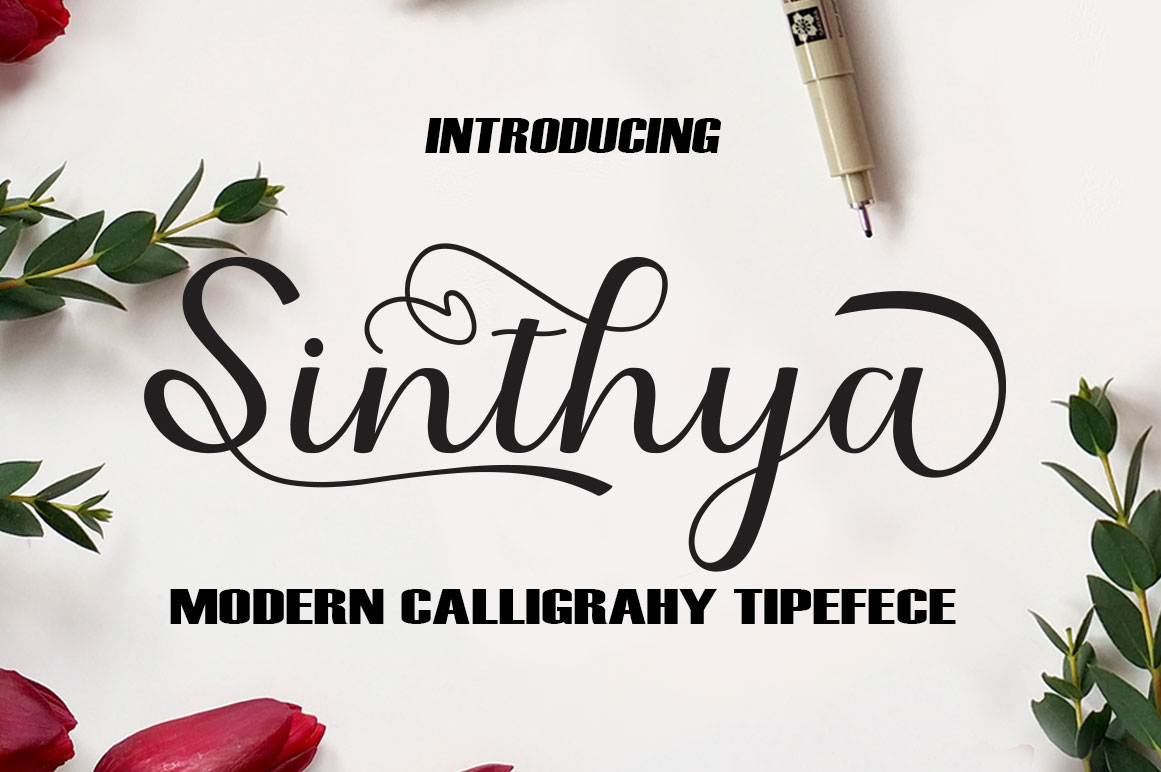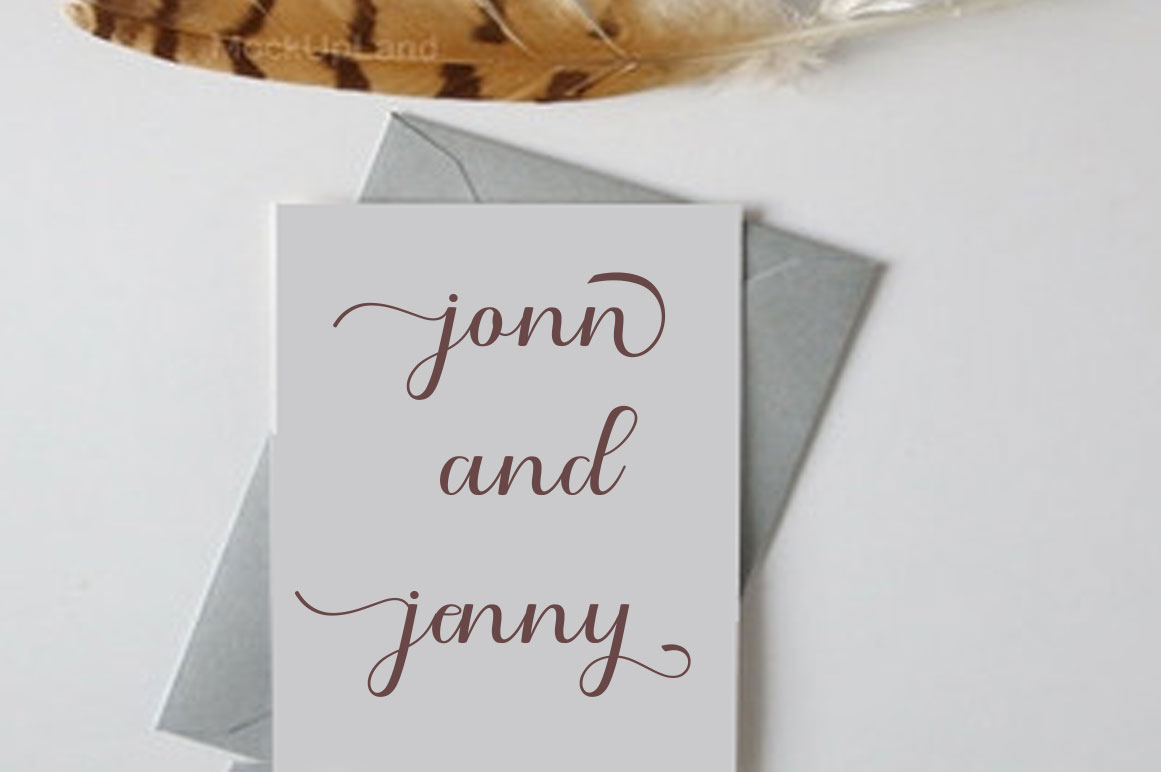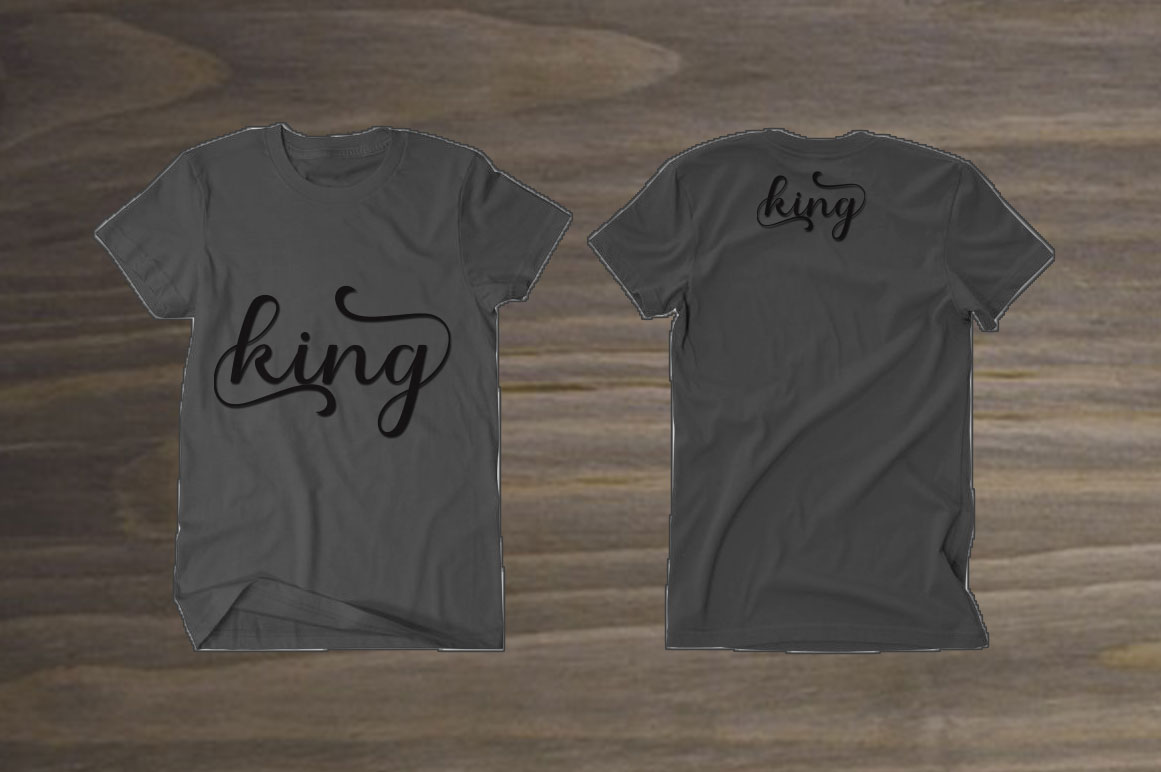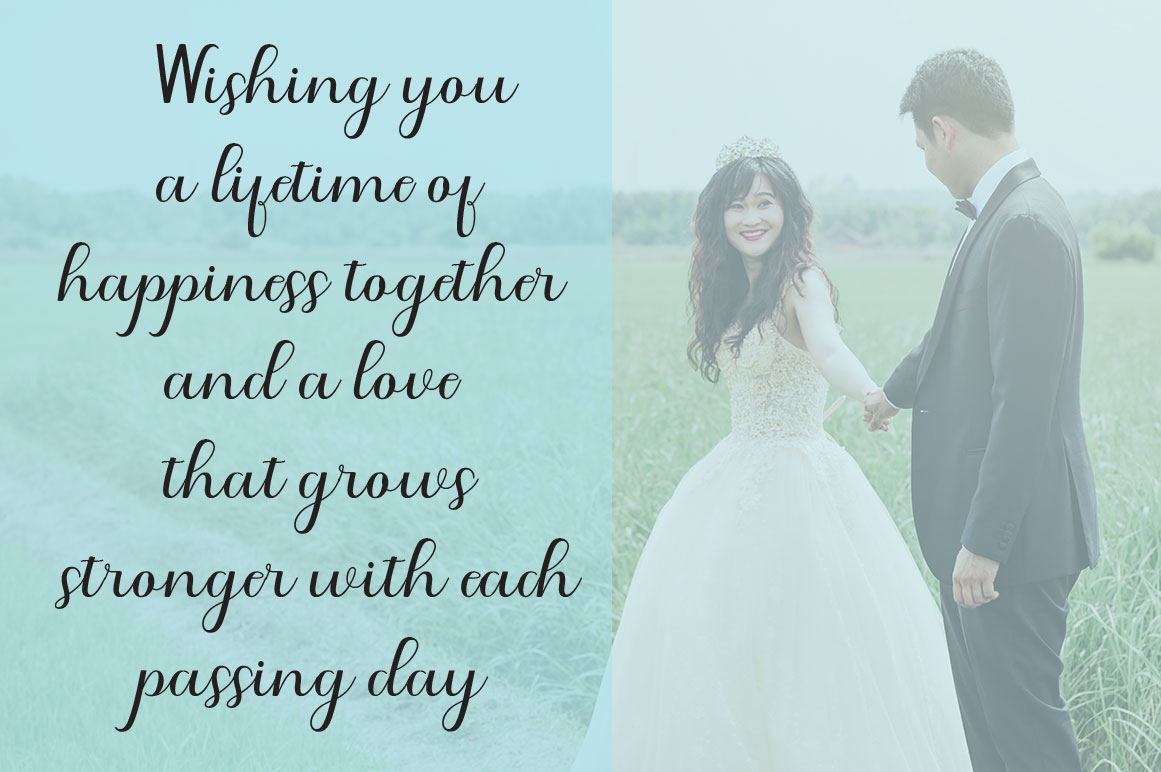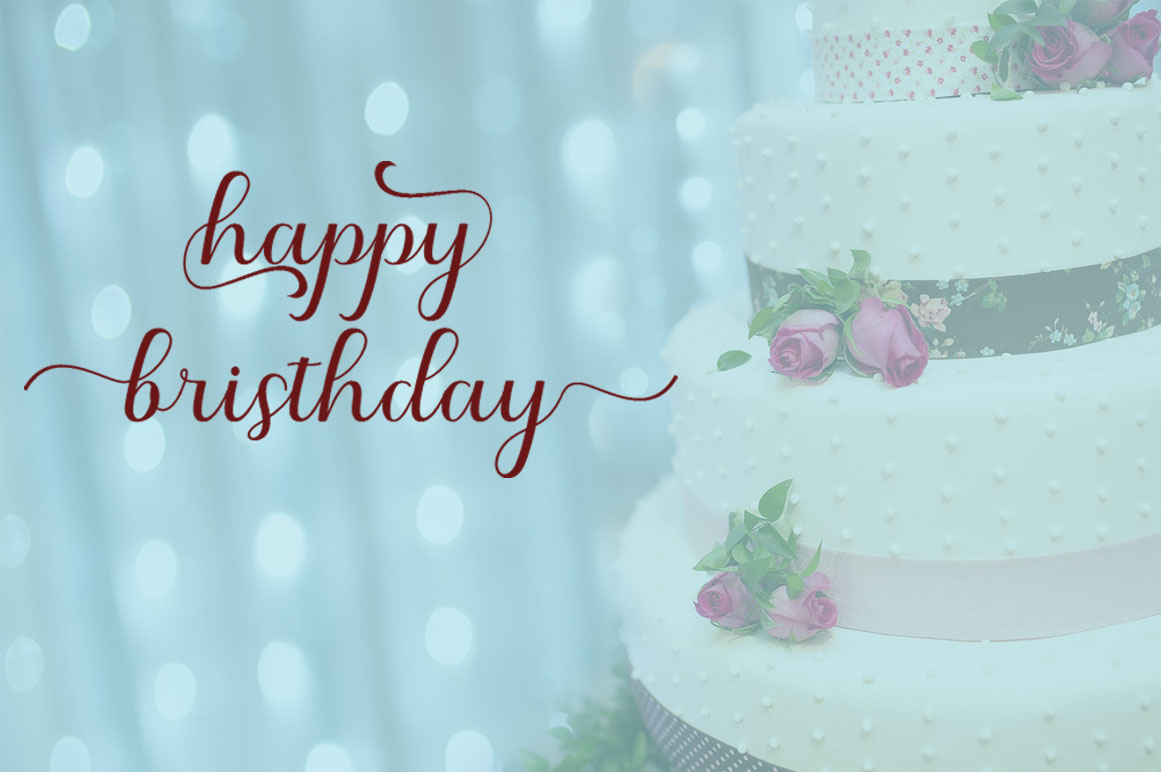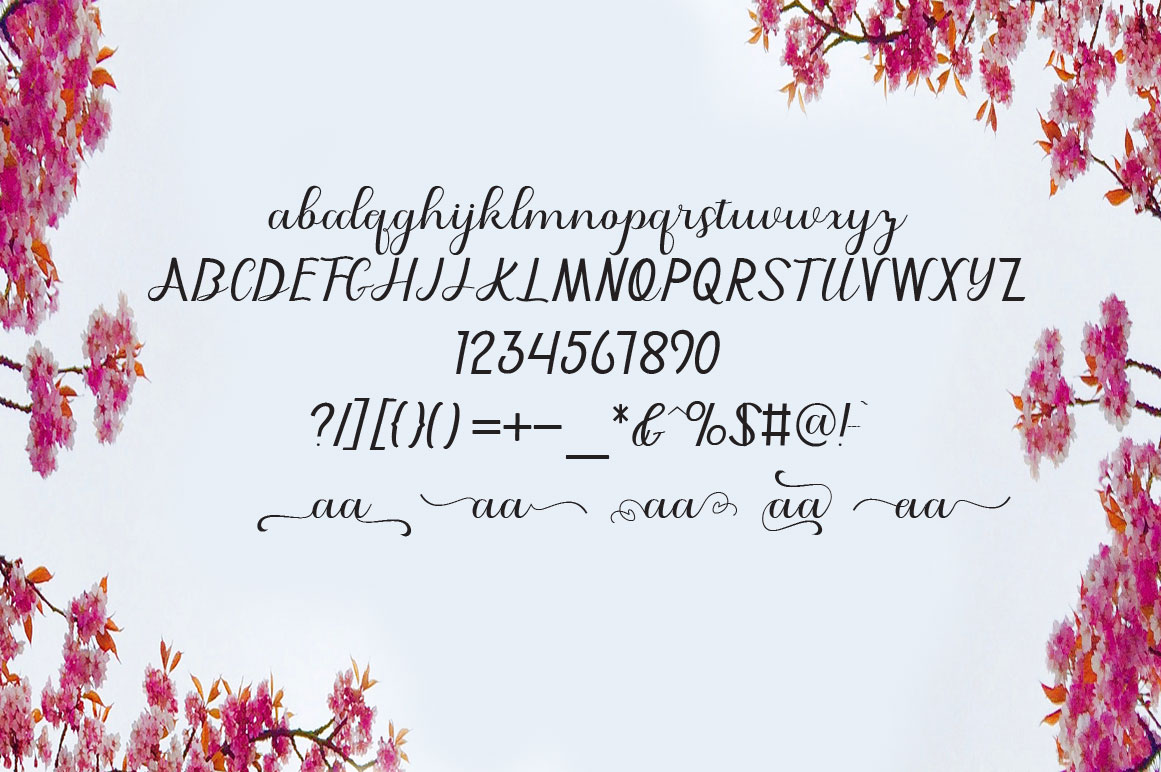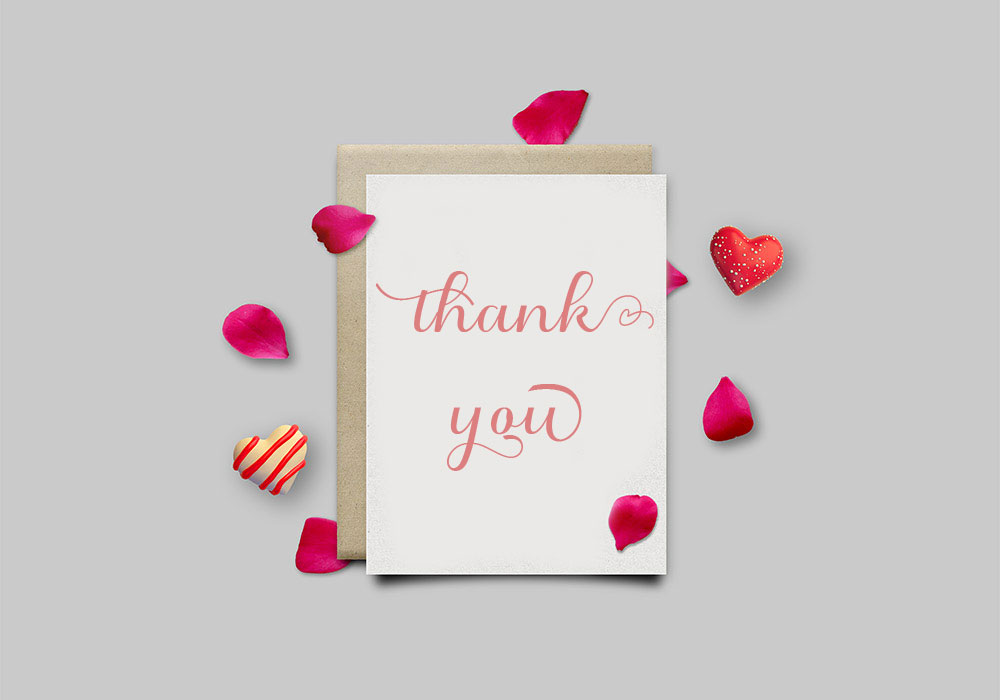
Sinthya Font
About Sinthya Font
Sinthya is a modern, handwritten script. It features traditional calligraphic-design trades and has a very natural style.